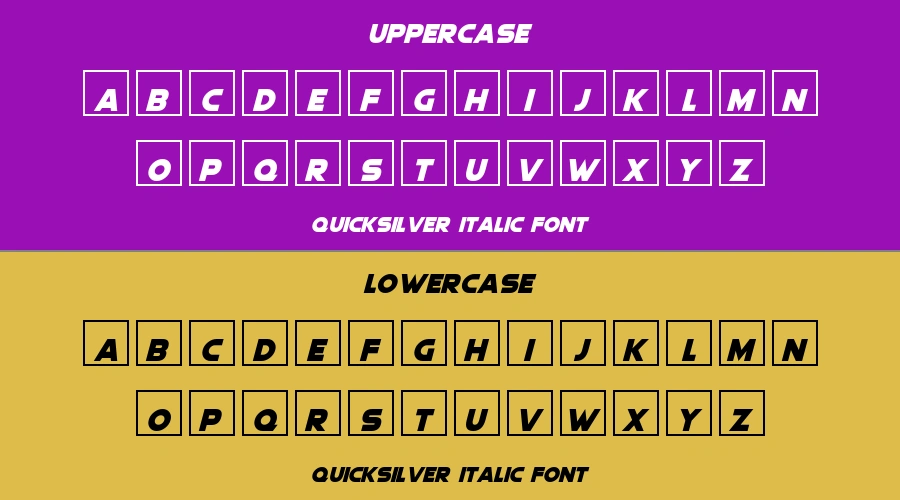
About Quicksilver Italic Font
Quicksilver Italic Font represents a sophisticated approach to type design, balancing modular forms with excellent legibility. Perfect for technical documentation, this font family showcases impressive expressiveness and technical excellence throughout its character set. Designers appreciate its versatility and reliability.
Designers will appreciate nuanced touches including pen-inspired details and stylistic alternates, adding sophistication to any project. These features become apparent in advertisements, where versatility matters most. The careful treatment of bowl shape and scholarly tradition ensures optimal performance.